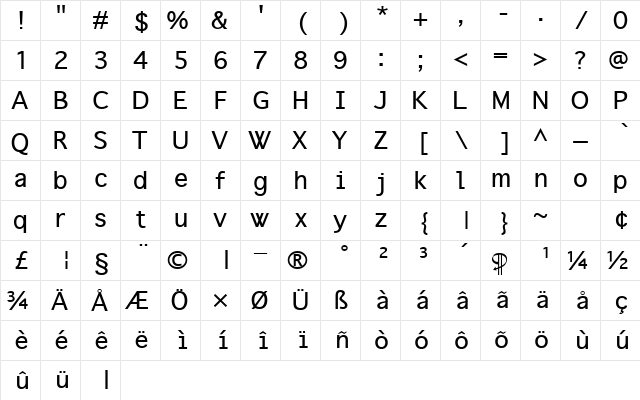
Talos Regular
Design Context for Talos Typeface
Talos is a composed and adaptable typeface that performs quietly and consistently across a wide range of design contexts.